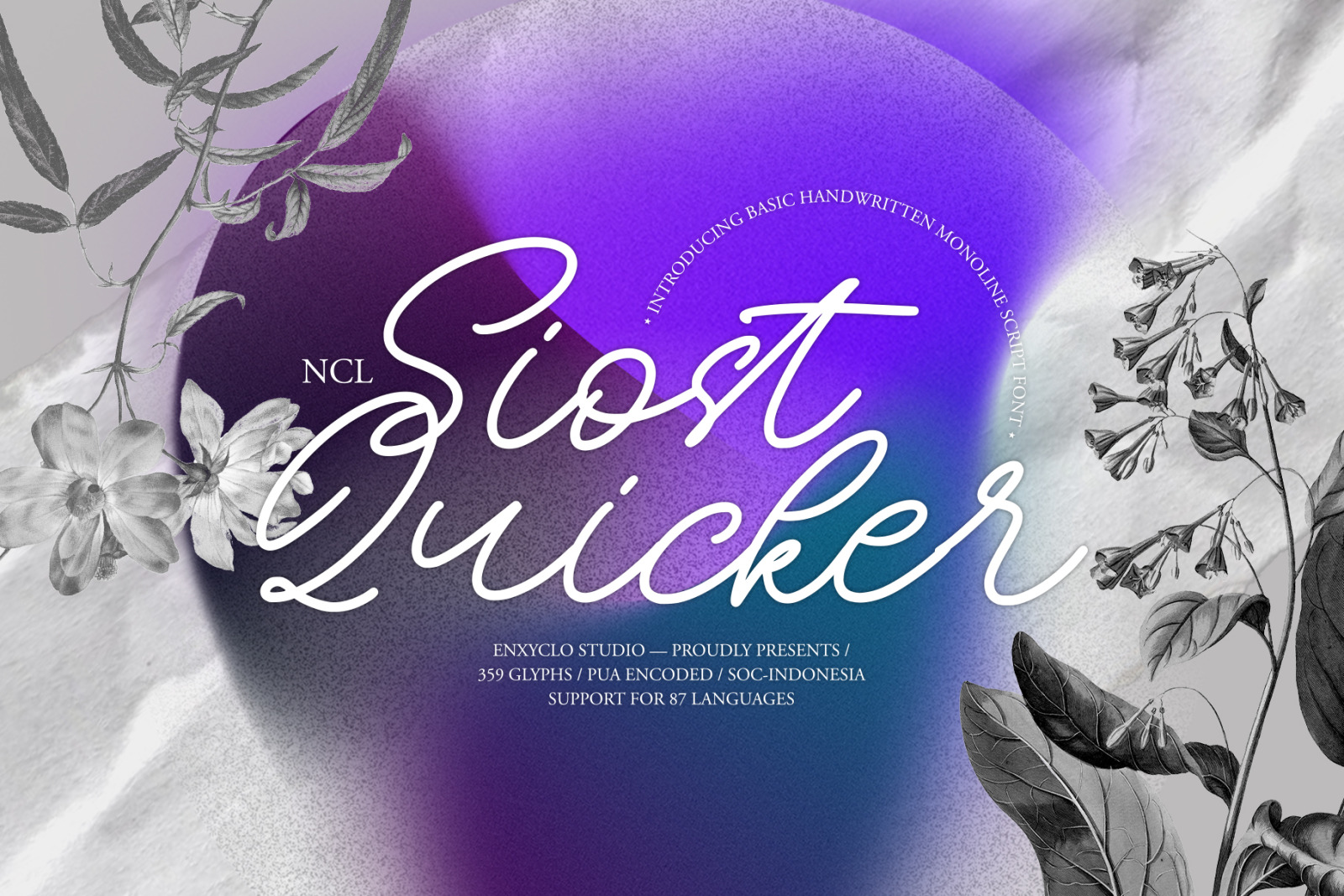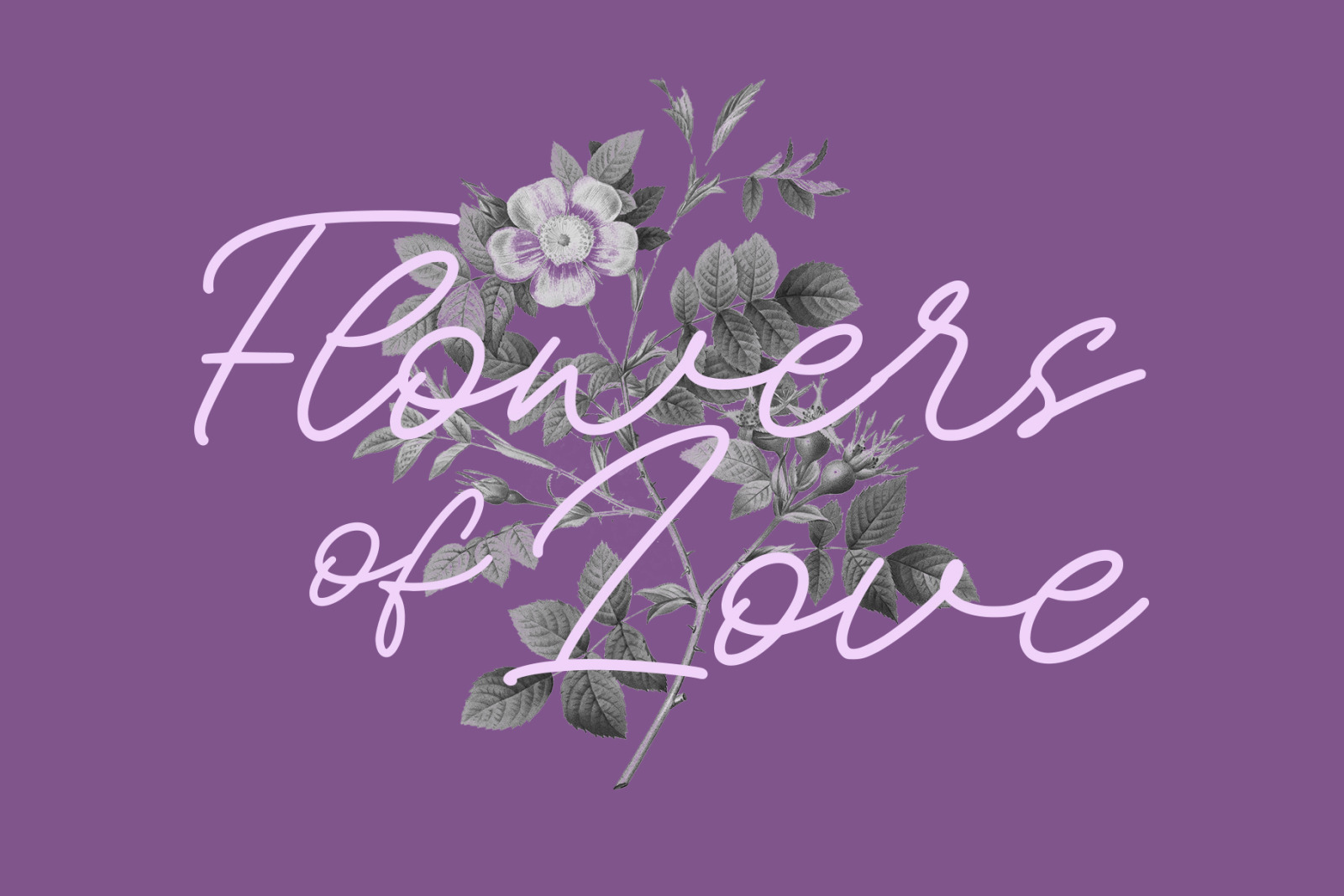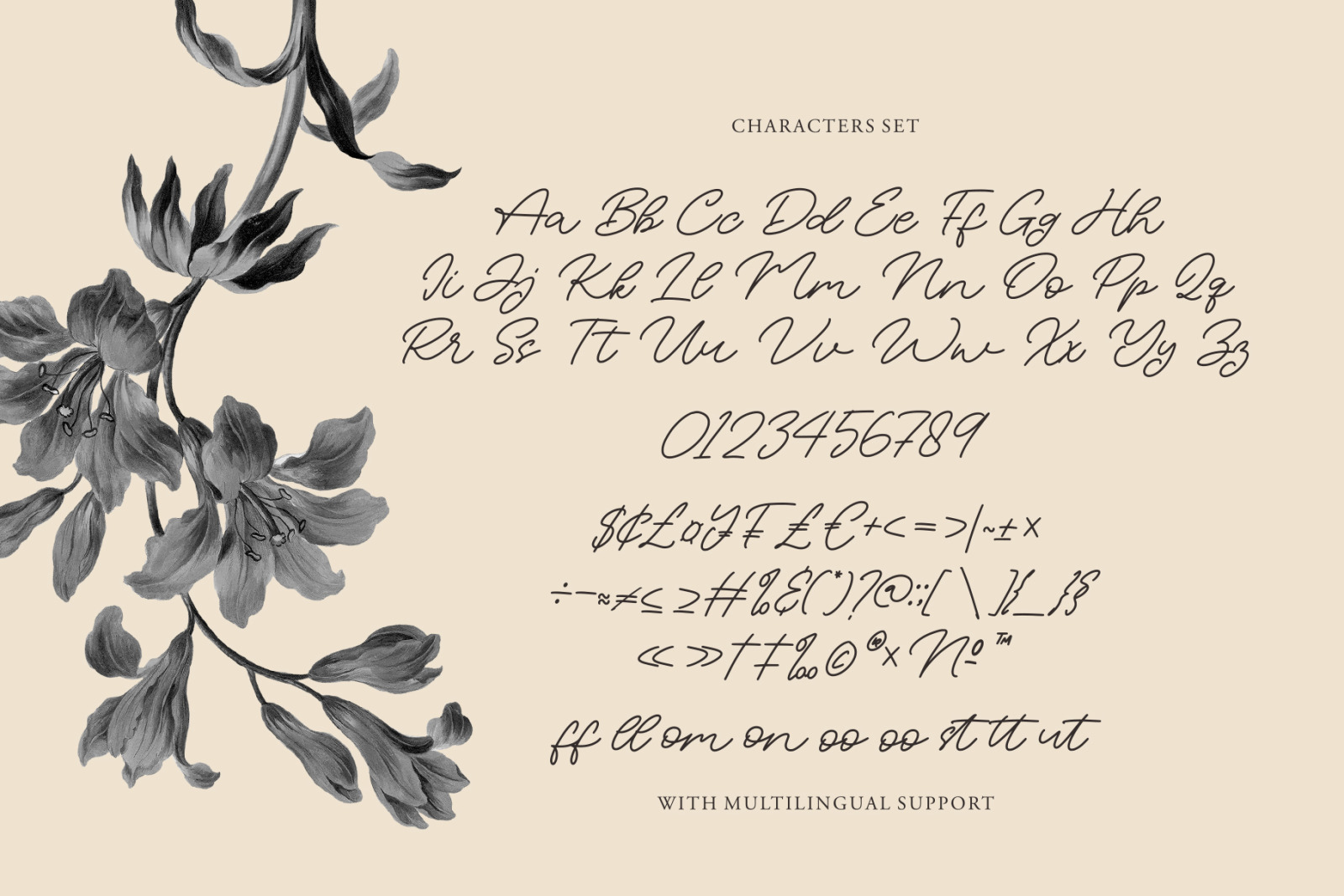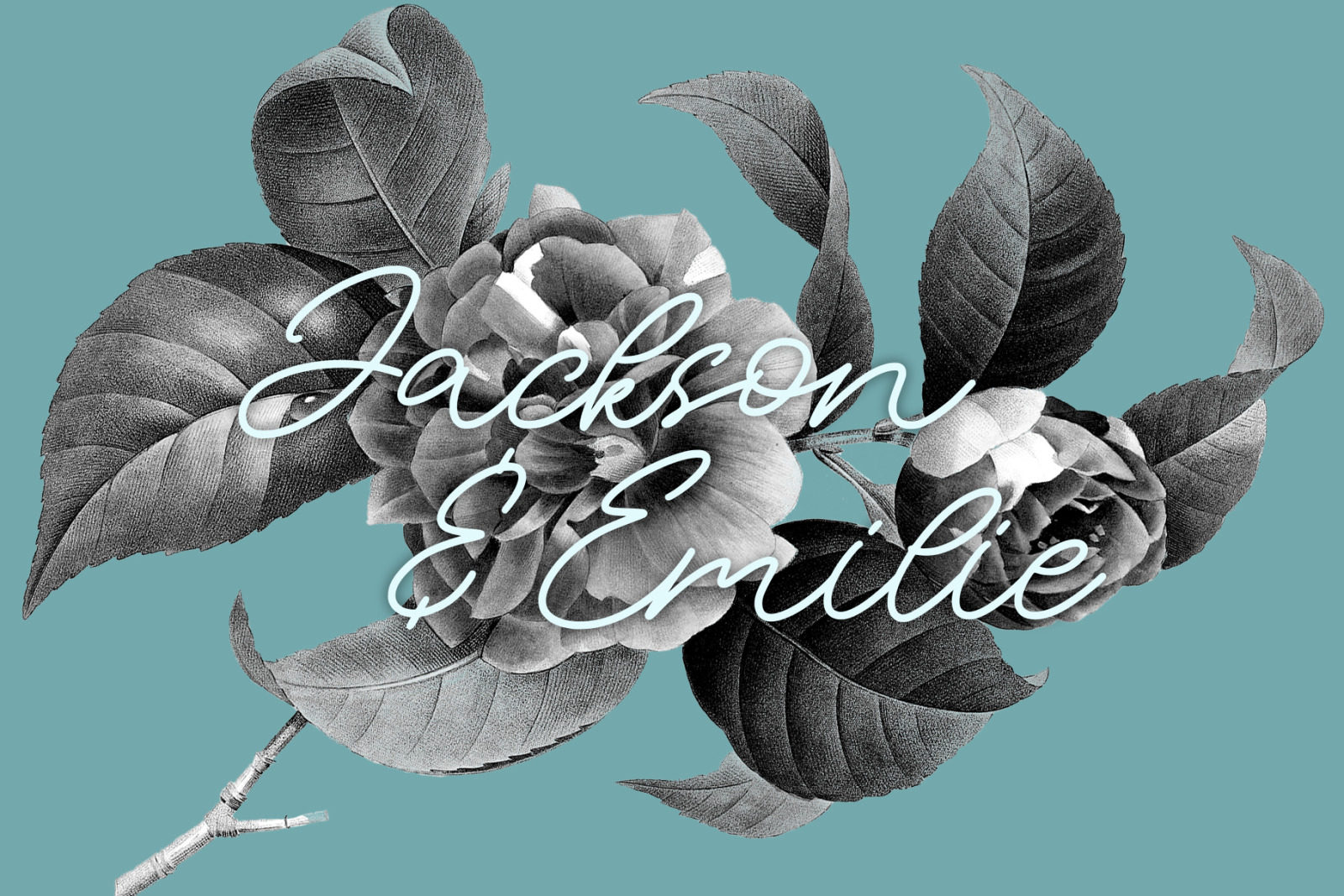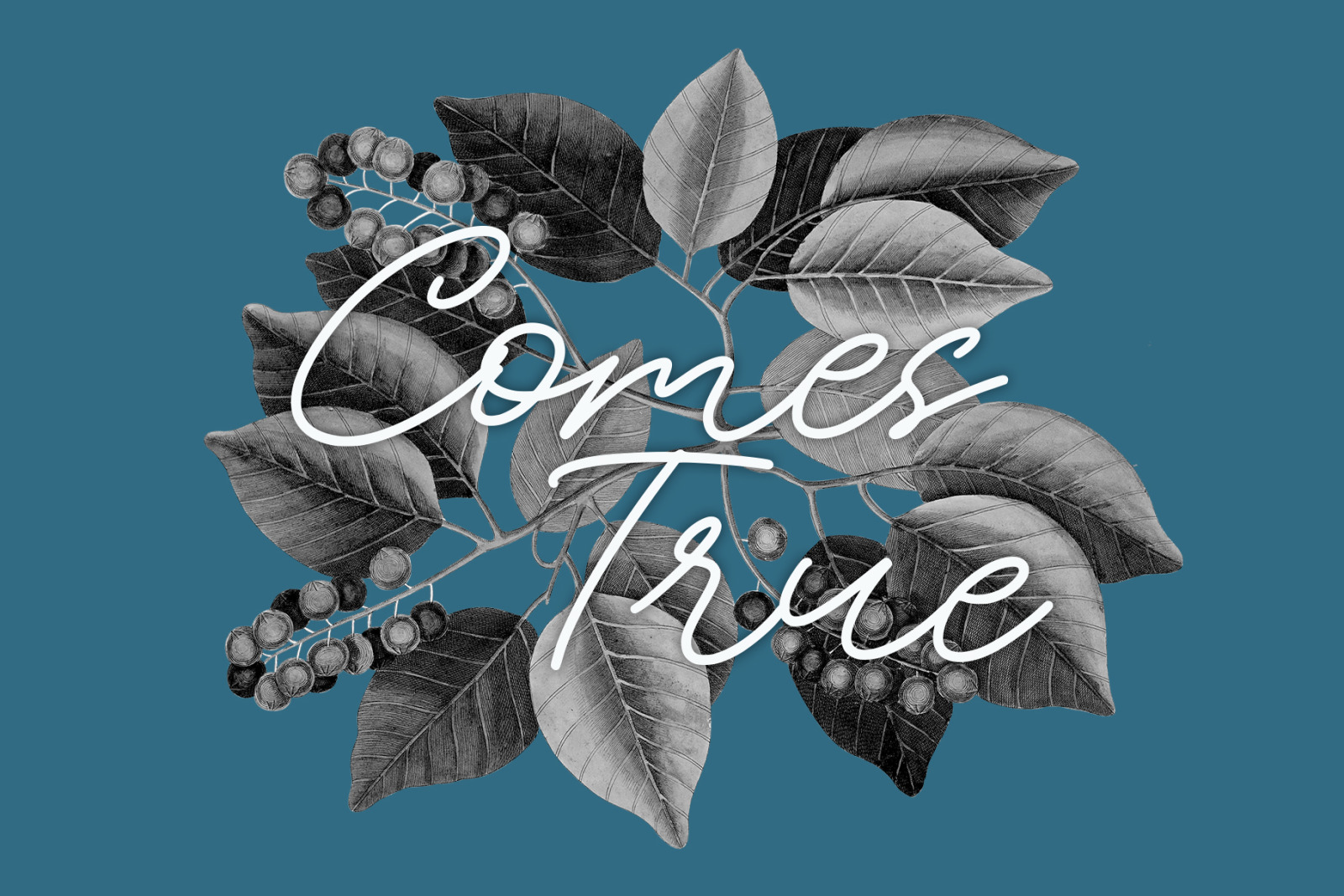
NCL SIOST QUICKER - Unique Monoline Wedding Romantic Feminime Display Font
NCL SIOST QUICKER is a simple and unique monoline script font. It's fun, unique, stylish and modern-classic display font. Masterfully designed to become a true favorite, this font has the potential to bring each of your creative ideas to the highest level! It was purposely crafted to be used in large point sizes, although it doesn’t lose its magic in small point sizes. It is perfect for headline, billboard, magazines, website, titles, poster, branding, t-shirt design, and logos. No matter the topic, this font will be an incredible asset to your fonts’ library, as it has the potential to elevate any creation. With this beautiful font, absolutely you can make your project stand out from the rest. See the previews above to get some inspiration on how to use them.
FEATURES
- Contains 359 Glyphs
- Uppercase, Lowercase & Numeral
- Punctuation, Symbol & Currencies